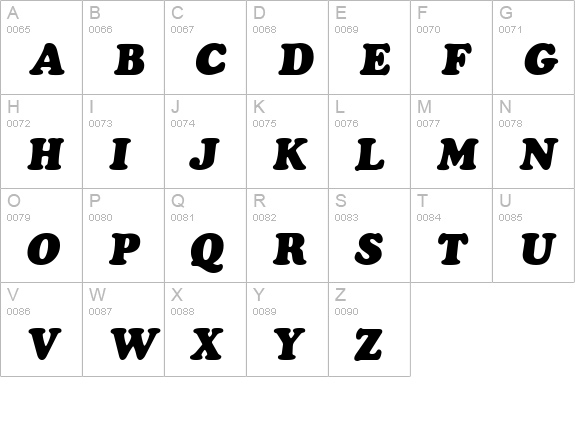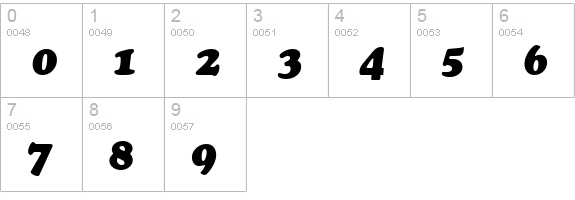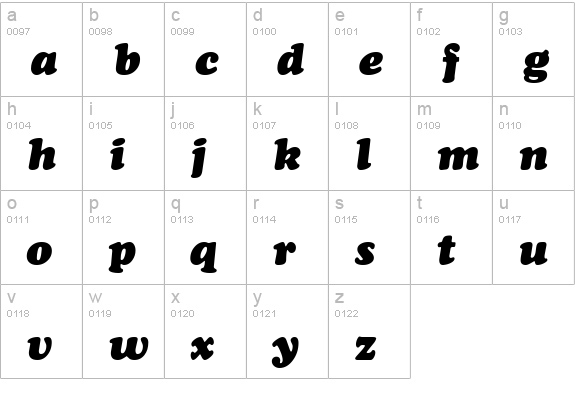
Cooper Italic is a distinctive, italic variant in the Cooper typeface family \xE2\x80\x94 well suited to design and typography projects.
Cooper Italic font is a timeless and elegant typeface that exudes sophistication and charm. Its slanted design adds a touch of flair to any project, making it perfect for headlines, invitations, and branding materials. The sleek and flowing lines of Cooper Italic create a sense of movement and energy, while still maintaining a sense of classic style. What makes Cooper Italic even more appealing is that it is available for free download at FontsMarket.com. This means that you can add this beautiful font to your collection without any cost, making it a valuable resource for designers and creatives alike. With its versatility and grace, Cooper Italic is sure to elevate your designs and leave a lasting impression. Download it today and let your creativity soar with this stunning typeface.